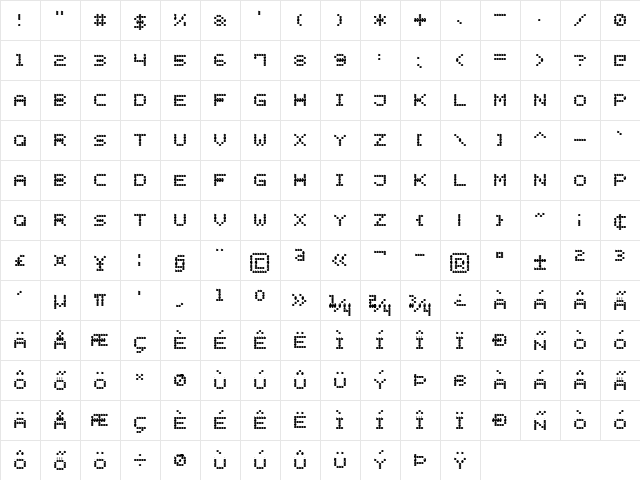
Light LED Display-7 Regular
Design Context for Light LED Display-7 Typeface
Light LED Display-7 is built around its visual character rather than neutral utility — its distinctive forms are designed to make an impression at display sizes. Its slender proportions lend an understated elegance to any composition.
Font Pairing: Pair with a clean neutral sans-serif for body copy to let Light LED Display-7's character lead without overwhelming the composition.
Pro Tip: Use Light LED Display-7 exclusively at display sizes — it was designed to be seen, not read at length. Let a neutral companion handle body copy.